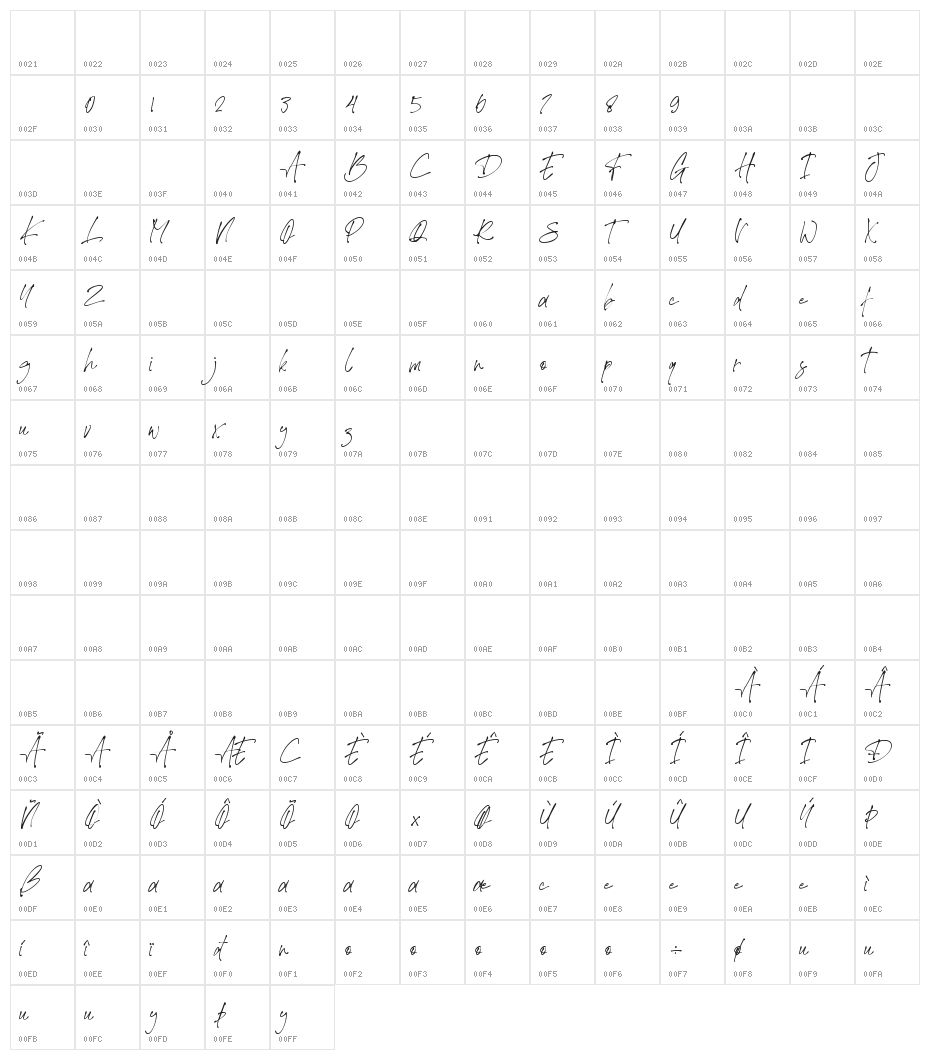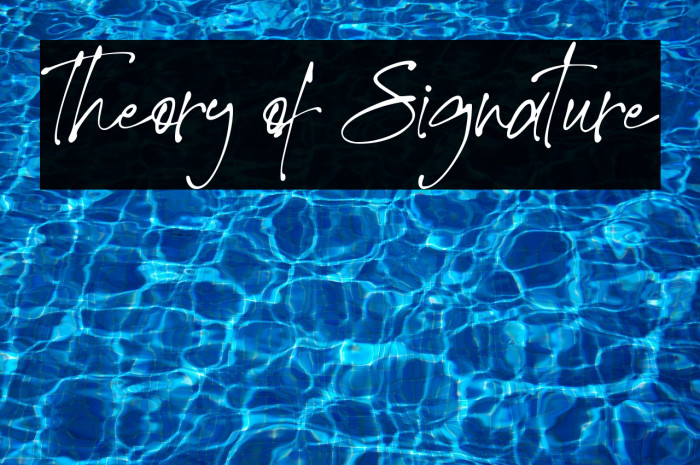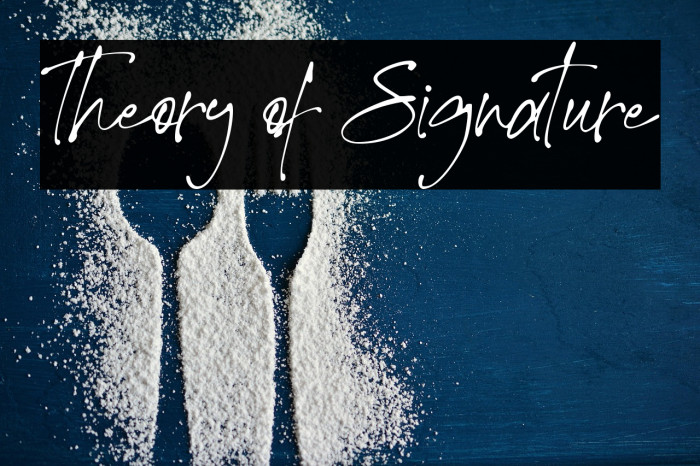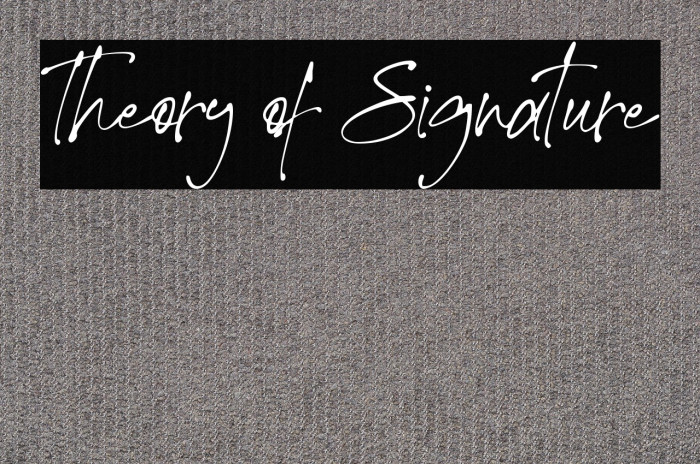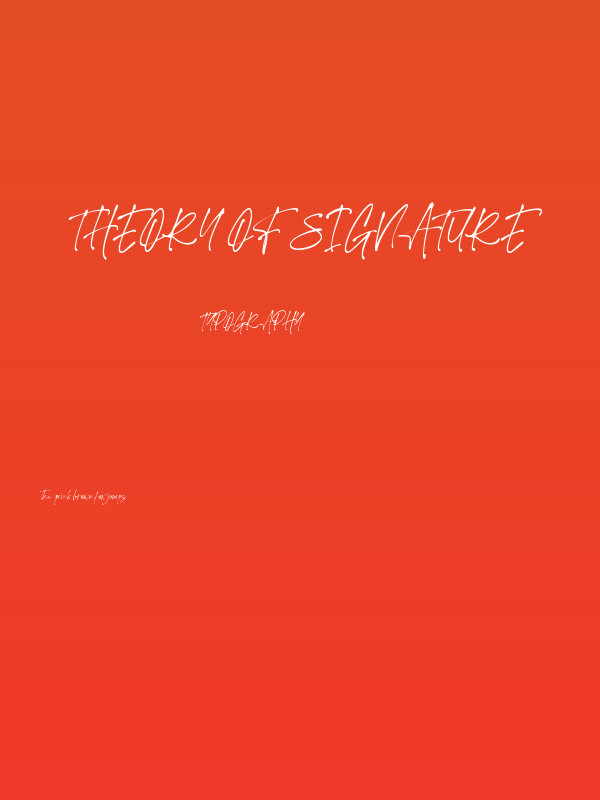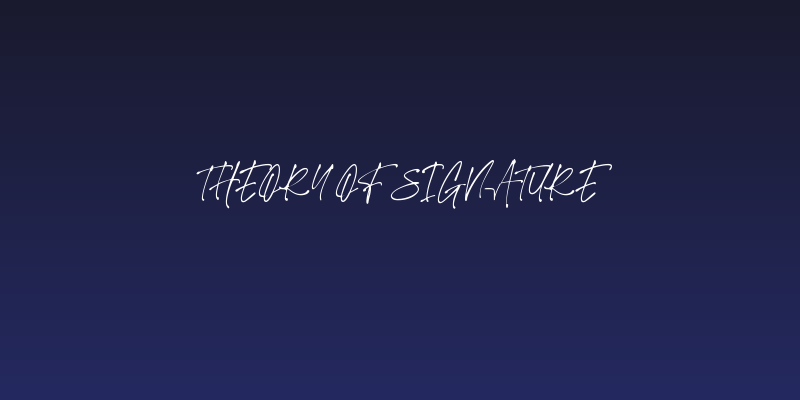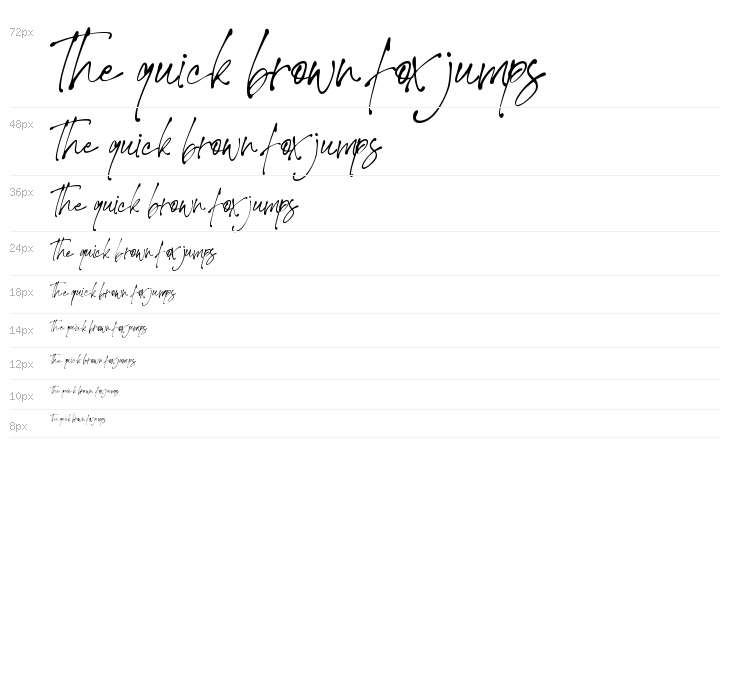
Theory of Signature Font
Theory of Signature Description
This font exudes a dynamic and expressive style, reminiscent of a personal handwritten signature. The characters are fluid and interconnected, with a natural flow that mimics the motion of a pen on paper. The uppercase letters are bold and sweeping, while the lowercase letters maintain a consistent rhythm with elegant loops and curves. The numerals are distinct yet harmonize well with the overall script style. This font's unique character is further enhanced by its varied line thickness, adding a sense of depth and movement. The special characters are seamlessly integrated, maintaining the font's cohesive aesthetic. Ideal for projects that require a personal touch, this font captures the essence of individuality and creativity.
| Use Case | Logos, Invitations, Personal branding |
| Proposed Projects | Ideal for personal branding, invitations, greeting cards, and artistic projects that require a personal touch. |